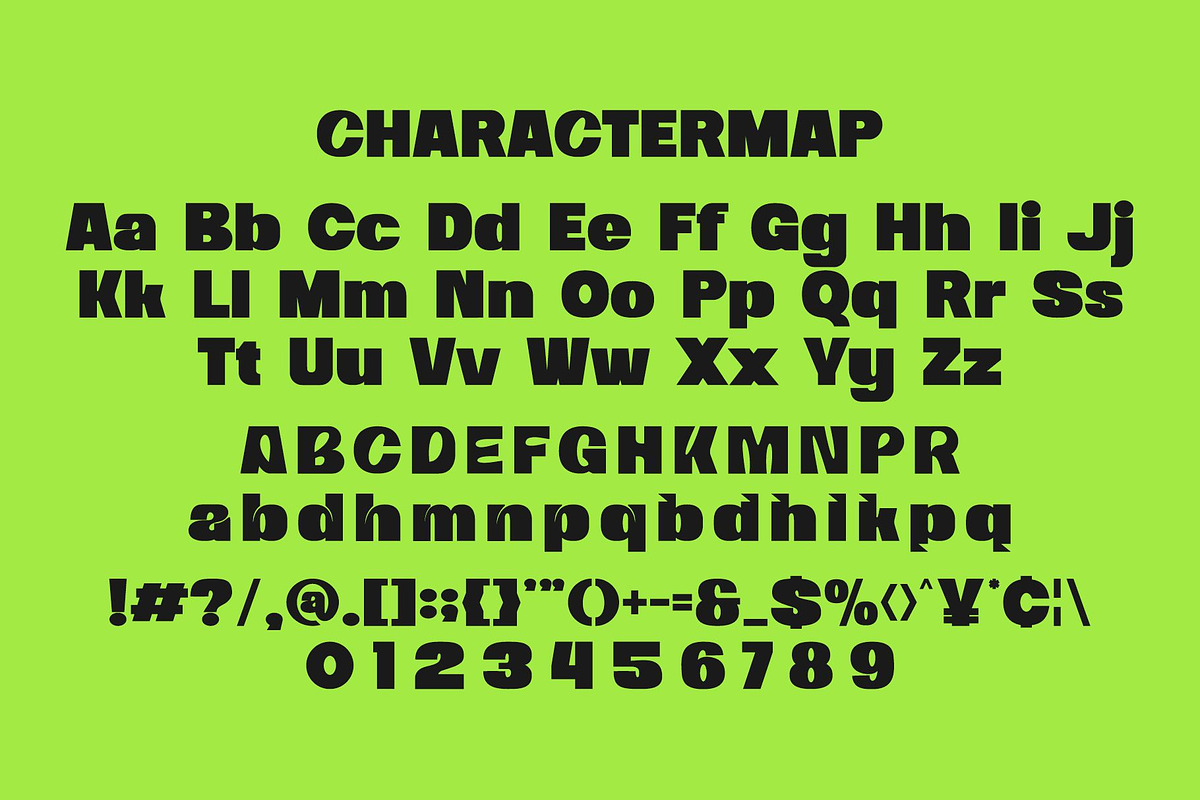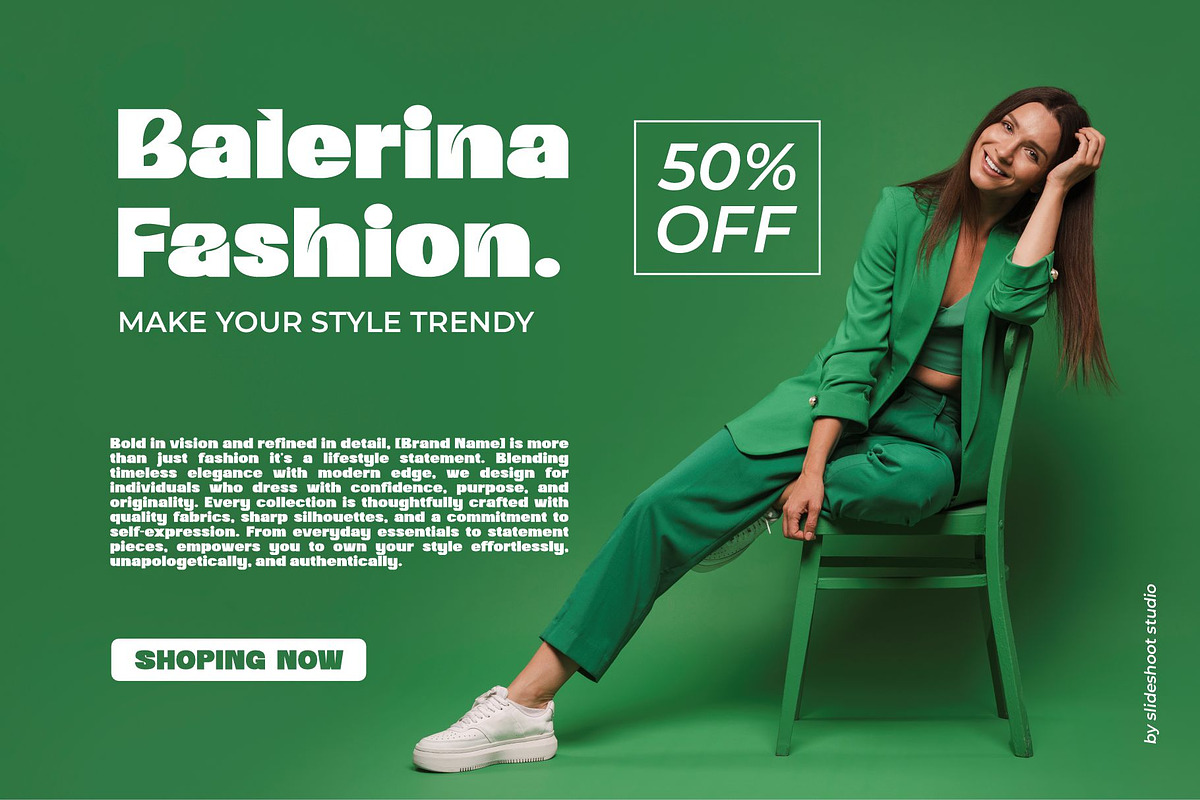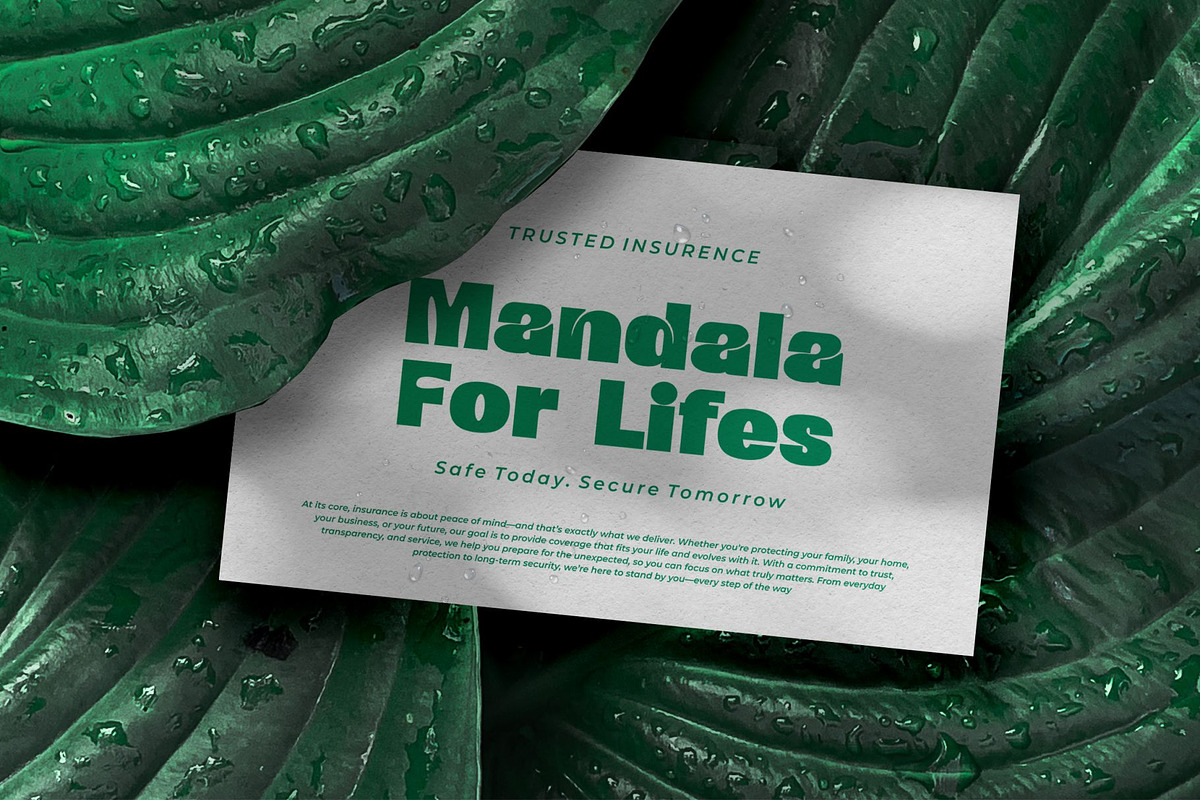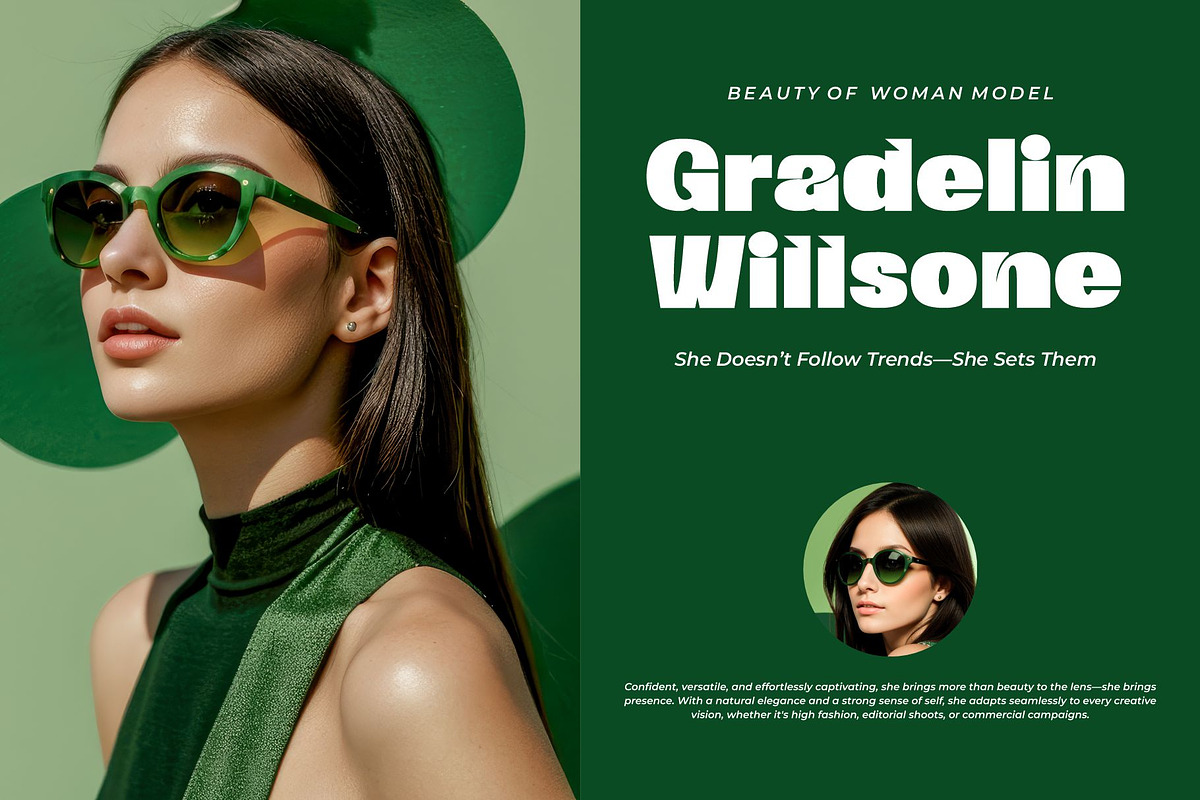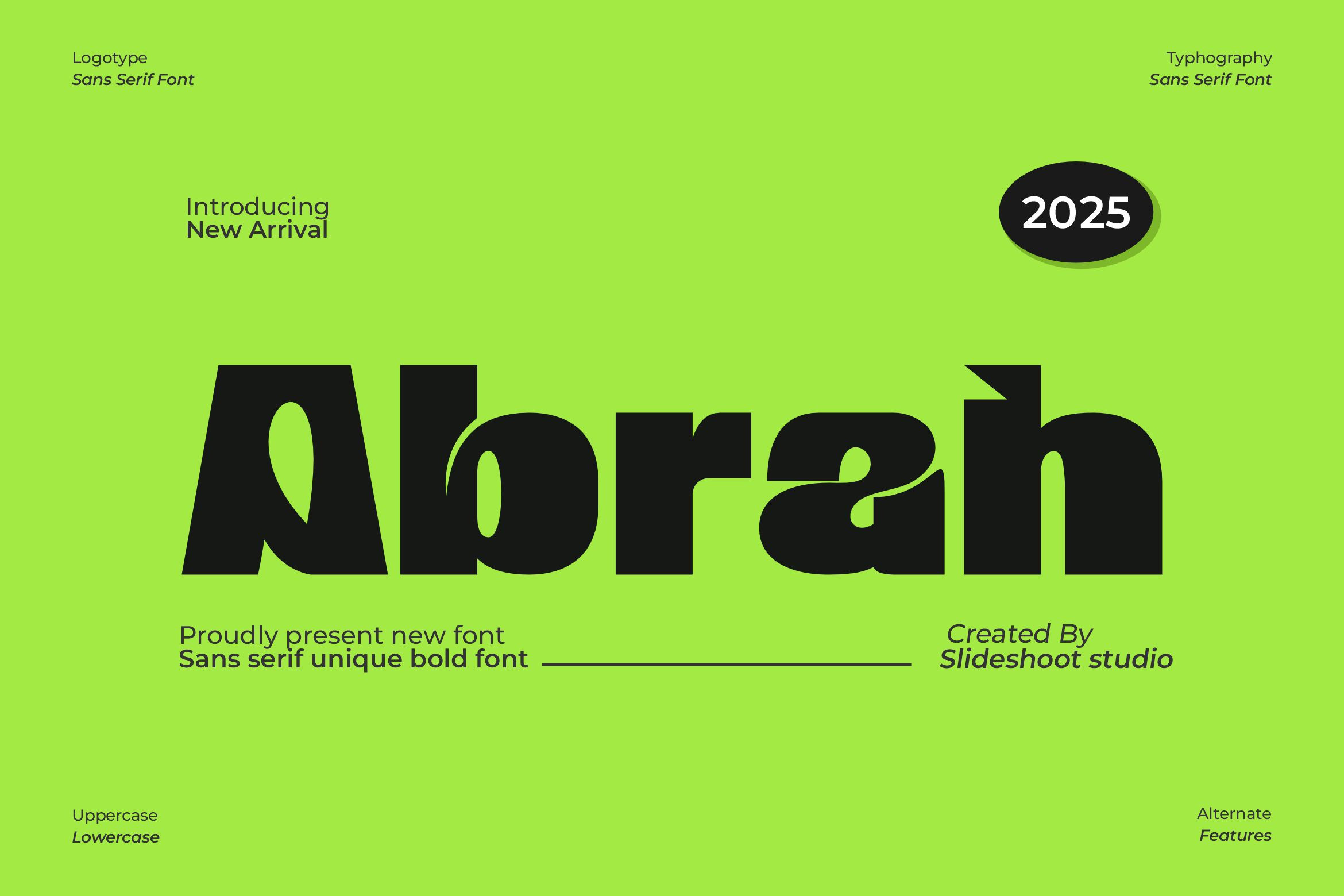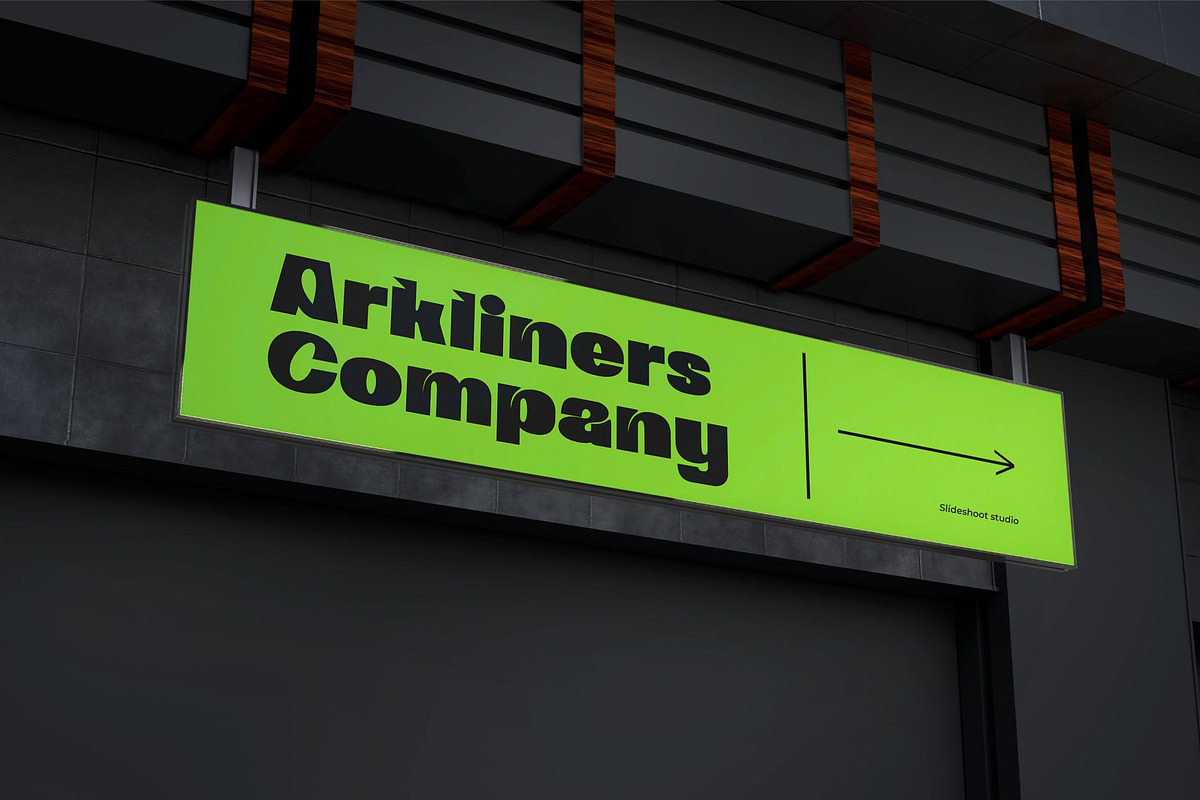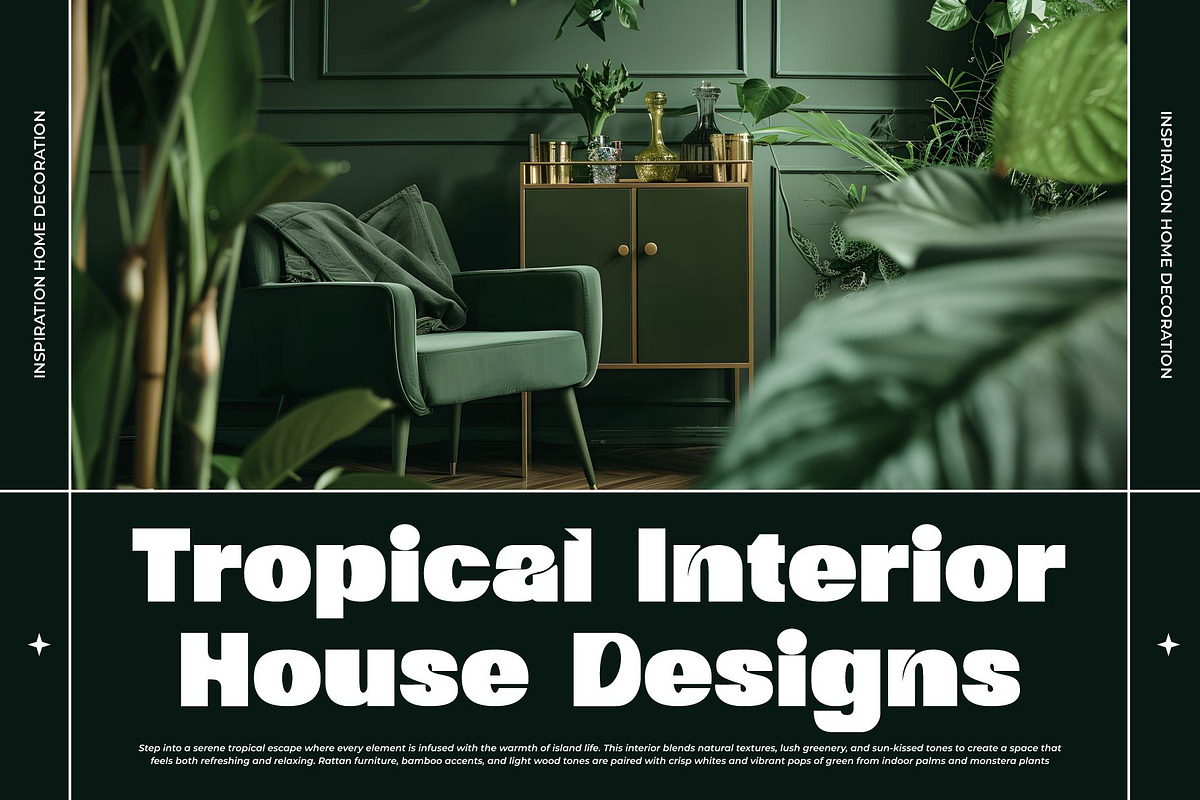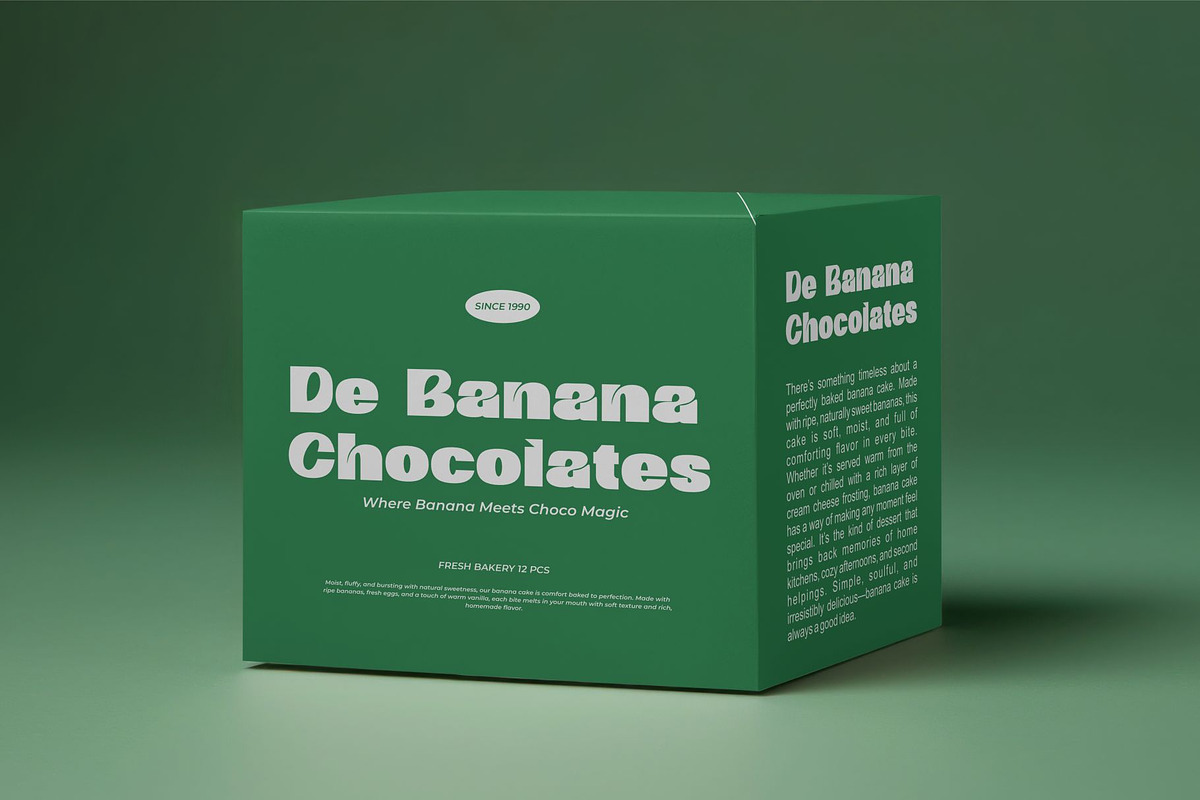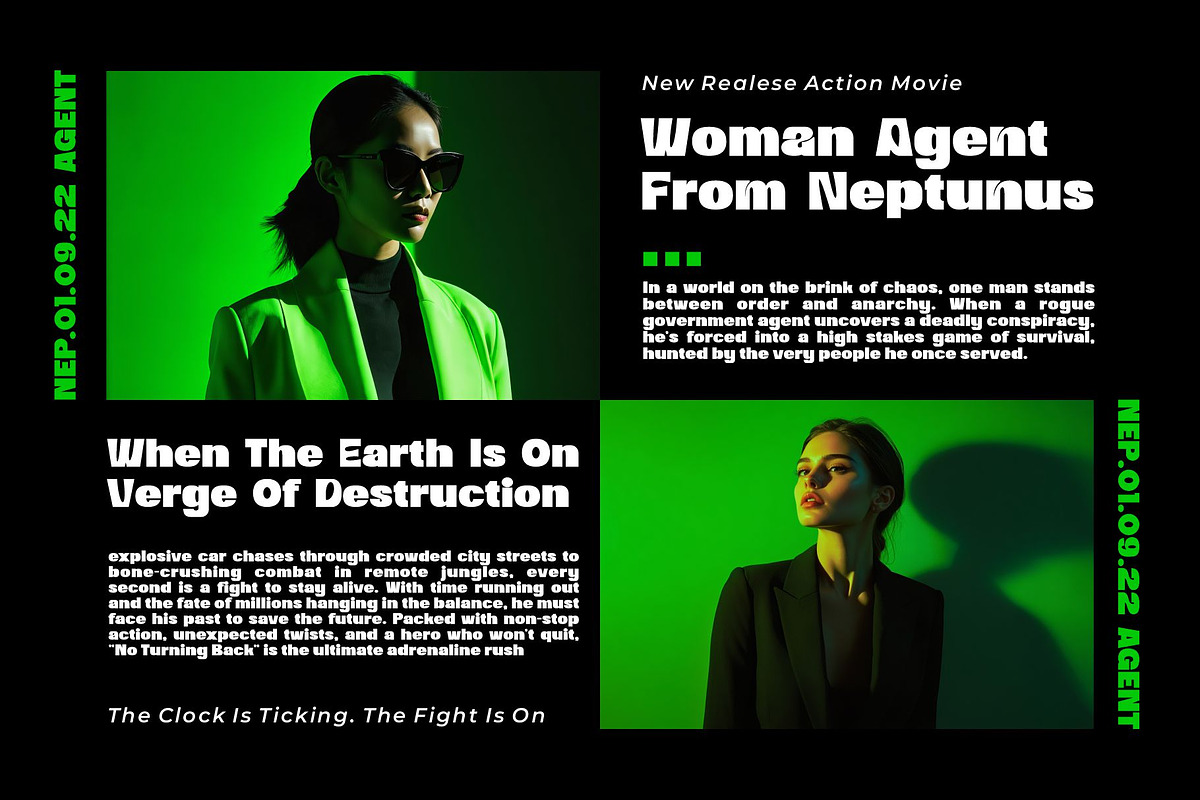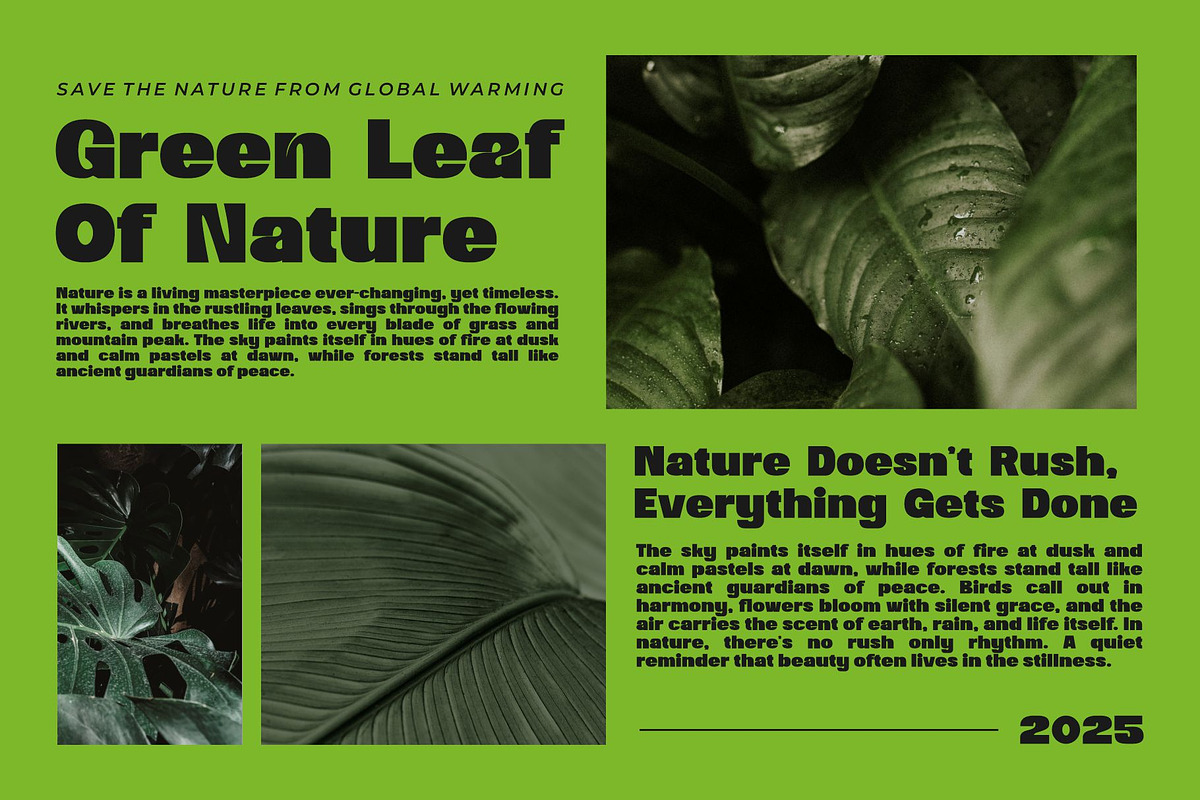
Abrah || Unique Bold Sans Serif Font
Introducing Abrah is a bold modern sans serif font, trendy, bouncy and cute display font. It has a unique character with wood theme. It is perfect to be combined with invitation card designs, company logos, movie titles, movie names, business cards, book titles, brand names and various other designs.